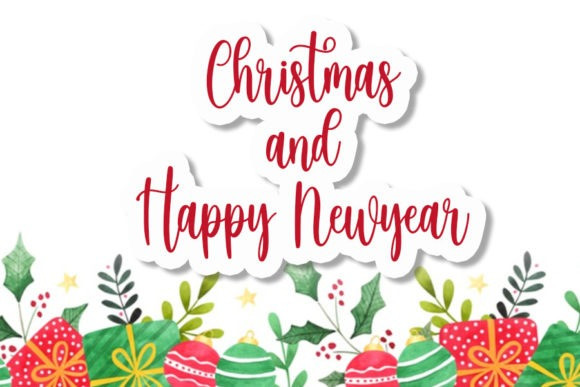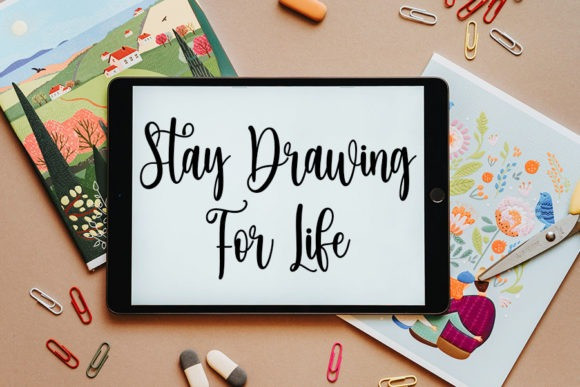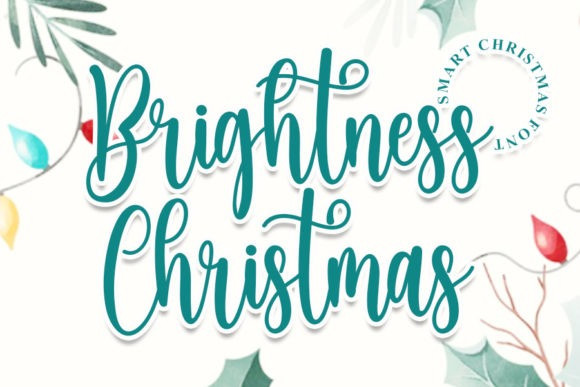
Brightness Christmas Font
Brightness Christmas Script Font is a lovely and delicate script handwritten font that exudes elegance and class. This font was particularly crafted for those who need a beautiful and refreshing look to their designs.